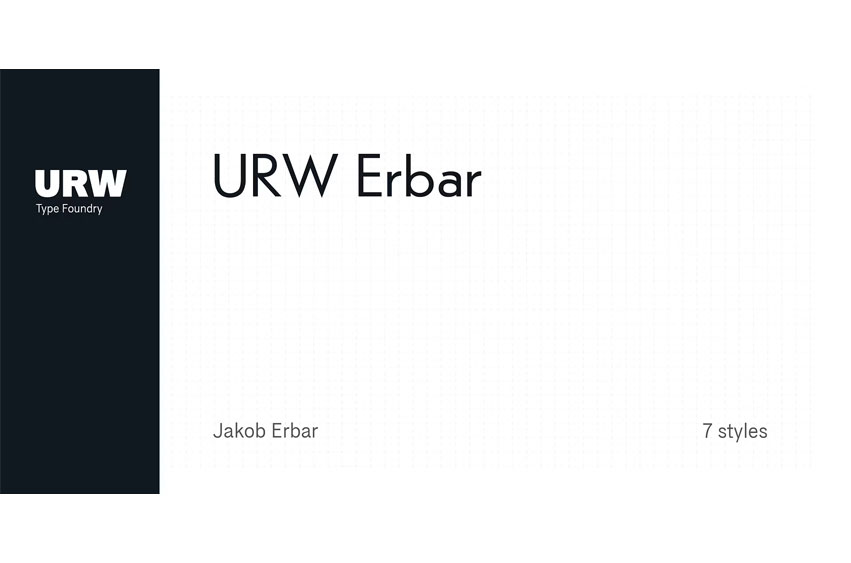
URW Erbar Font
URW Erbar Font Erbar or Erbar Grotesk, designed by Jakob Erbar for Ludwig & Mayer in the early 1920s, was one of the first and most popular of the new geometric sans serifs of this time. It is truly a key design from a historical viewpoint: None other than Paul Renner studied Erbar and used this knowledge for designing of his famous Futura.
Erbar is a beautiful constructed sans serif, perfectly mirroring the zeitgeist of the 1920s. This expanded Erbar family of URW comes in nine styles, which have been digitally remastered in URW’s design studio.